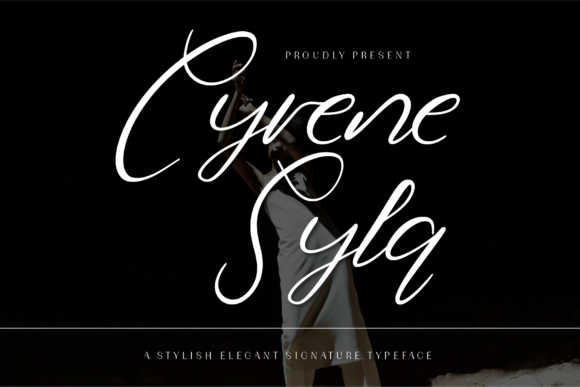
Cyrene Syla Font: Elevate Your Designs with Luxurious Elegance
In the world of typography, few fonts manage to convey the essence of luxury and sophistication as effortlessly as Cyrene Syla. This stunning signature font is designed to bring a touch of elegance and refinement to any design project, making it the perfect choice for high-end branding, wedding invitations, fashion logos, and more. With its sleek, modern design and fluid, handwritten forms, Cyrene Syla is sure to leave a lasting impression of charm and exclusivity.
The Characteristics of Cyrene Syla Font
Cyrene Syla is a masterclass in typographic design, boasting a range of characteristics that set it apart from other fonts. Its most striking feature is its use of thin, graceful strokes that flow effortlessly across the page. These delicate lines give the font a sense of fluidity and movement, imbuing it with a sense of dynamism and energy.
Another key characteristic of Cyrene Syla is its handwritten forms. Unlike traditional serif or sans-serif fonts, Cyrene Syla features fluid, cursive strokes that give it a distinctly human feel. This handwritten quality makes it perfect for designs that require a personal touch, such as wedding invitations, greeting cards, and luxury branding.
In addition to its elegant lines and handwritten forms, Cyrene Syla also features a sleek, modern design that is sure to appeal to designers and clients alike. Its clean lines, subtle curves, and carefully crafted letterforms make it a versatile font that can be used in a wide range of design applications.
The Benefits of Using Cyrene Syla Font
So why choose Cyrene Syla for your design projects? The answer lies in its versatility, elegance, and timeless appeal. Here are just a few benefits of using Cyrene Syla:
- Elegance and Sophistication: Cyrene Syla exudes luxury and refinement, making it perfect for high-end branding, fashion logos, and exclusive events.
- Versatility: With its clean lines and modern design, Cyrene Syla can be used in a wide range of design applications, from print to digital.
- Timeless Appeal: Unlike trendy fonts that quickly go out of style, Cyrene Syla has a timeless quality that ensures it will remain relevant for years to come.
- Personal Touch: The handwritten forms and fluid strokes of Cyrene Syla give it a distinctly human feel, making it perfect for designs that require a personal touch.
How to Use Cyrene Syla Font in Your Designs
Using Cyrene Syla in your designs is easy. Here are a few tips to get you started:
- Pair it with Neutral Colors: Let Cyrene Syla be the star of the show by pairing it with neutral colors like black, white, and gray.
- Use it for Headlines and Titles: Cyrene Syla is perfect for headlines and titles, where its elegant lines and fluid strokes can really shine.
- Add a Personal Touch: Use Cyrene Syla to add a personal touch to your designs, such as in wedding invitations, greeting cards, and luxury branding.
- Experiment with Different Sizes: Don’t be afraid to experiment with different sizes and scales to see how Cyrene Syla looks in different contexts.
Cyrene Syla Font in Branding and Advertising
Cyrene Syla is an excellent choice for branding and advertising, particularly for luxury brands that want to convey a sense of elegance and sophistication. Here are a few examples of how Cyrene Syla can be used in branding and advertising:
- Luxury Logos: Use Cyrene Syla to create a luxurious logo that exudes refinement and elegance.
- High-End Advertising: Cyrene Syla is perfect for high-end advertising campaigns that require a sophisticated and elegant typography.
- Packaging Design: Use Cyrene Syla to add a touch of luxury to packaging design, particularly for high-end products.
Cyrene Syla Font in Wedding and Event Design
Cyrene Syla is also an excellent choice for wedding and event design, particularly for couples who want to convey a sense of elegance and sophistication. Here are a few examples of how Cyrene Syla can be used in wedding and event design:
- Wedding Invitations: Use Cyrene Syla to create beautiful wedding invitations that exude elegance and refinement.
- Event Branding: Cyrene Syla is perfect for event branding, particularly for high-end events that require a sophisticated typography.
- Wedding Stationery: Use Cyrene Syla to create beautiful wedding stationery, such as thank-you cards and programs.
In conclusion, Cyrene Syla is a luxurious and stylish signature font that exudes elegance and sophistication. With its sleek design, fluid strokes, and handwritten forms, Cyrene Syla is perfect for high-end branding, wedding invitations, fashion logos, and more. Whether you’re a designer, entrepreneur, or event planner, Cyrene Syla is sure to elevate your designs and leave a lasting impression of charm and exclusivity.